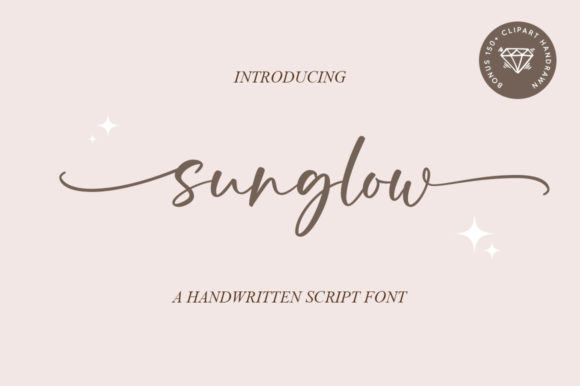
Overflowing with charm and elegance, the Sunglow Font family invites you to a world of captivating creation. This enchanting script, crafted by the masterful Graphix Line Studio, has been meticulously designed to ignite your creativity and make a lasting impression.
With every stroke of the Sunglow Font, you'll leave an indelible mark on invitations, logos, and designs that speak volumes. Its captivating curves and graceful flourishes will elevate your words into works of art, ensuring they captivate and inspire all who behold them.
Prepare to be mesmerized as you explore the boundless possibilities of Sunglow Font. This remarkable font family is lovingly PUA encoded, granting you effortless access to its trove of enchanting glyphs and swashes. Unleash your imagination and adorn your creations with an unparalleled level of sophistication.
Whether you're a seasoned designer or a budding artist, Sunglow Font will become your trusted companion, guiding you to create breathtaking designs that leave a lasting legacy. Let its timeless beauty and captivating charm become your muse as you craft masterpieces that will forever be cherished.